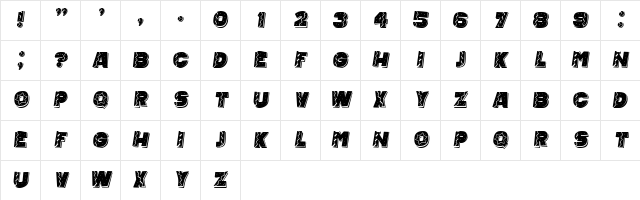
Mexican Tequila Italic Free Font
Mexican Tequila Italic
Style: Italic
Foundry: Vladimir Nikolic
Designer: Vladimir Nikolic
Design Context for Mexican Tequila
Mexican Tequila is a composed and adaptable typeface that performs quietly and consistently across a wide range of design contexts. The slanted form adds forward momentum and visual energy.
Pro Tip: Use Mexican Tequila for emphasis, pull quotes, and subheadings where its slanted energy can add rhythm to the layout.